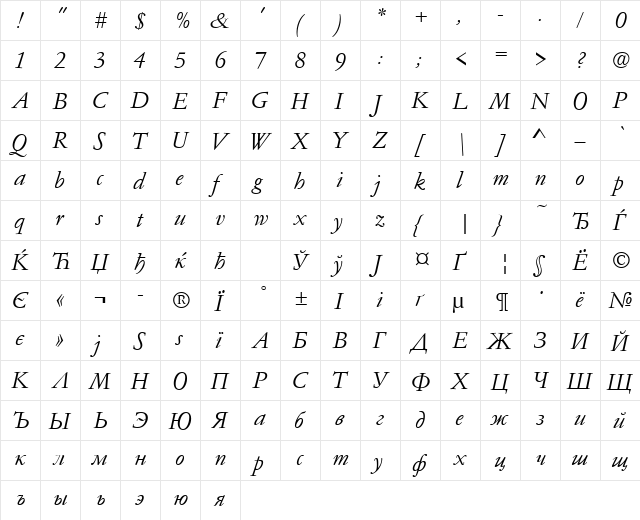
GaramondNo4CyrTCYLig Italic
Design Context for GaramondNo4CyrTCYLig Typeface
GaramondNo4CyrTCYLig is a composed and adaptable typeface that performs quietly and consistently across a wide range of design contexts. The slanted form adds forward momentum and visual energy.
Pro Tip: Try GaramondNo4CyrTCYLig for annotation and caption copy alongside an upright companion — the contrast in angle creates a dynamic but ordered typographic system.